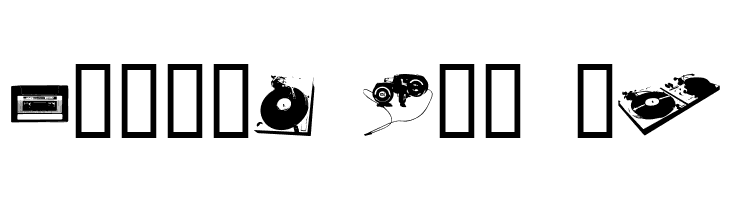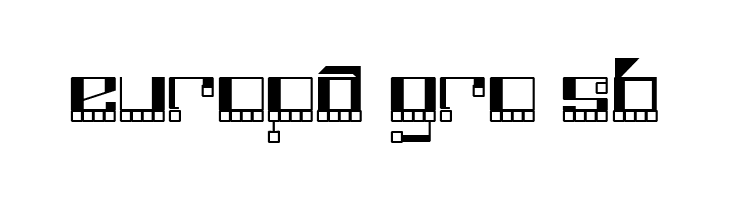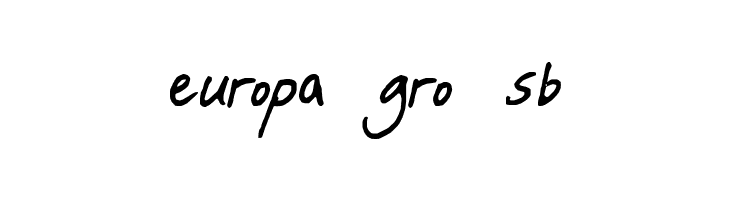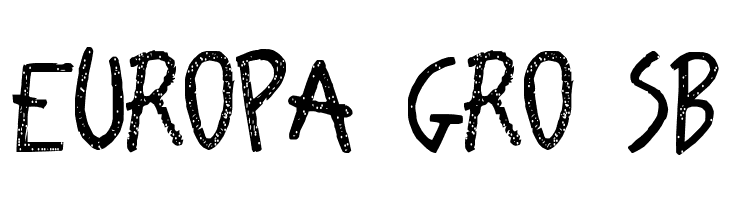
A modern, elegant font with art deco influences and slender letterforms.
A shadowed, art deco-inspired font with geometric shapes and elegant lines.
A playful, bubbly font with rounded edges and quirky cutouts.
A bold, rugged font with a hand-drawn, distressed appearance.
A bold, grid-patterned font with a futuristic and digital aesthetic.
A decorative font with whimsical bird illustrations replacing standard characters.
A playful font featuring unique hand-drawn bird illustrations.
A playful decorative font with unique bird illustrations for each character.
A playful, handwritten font with rounded, informal letterforms.
A decorative font with law enforcement and crime-themed illustrations.
A decorative font with characters inside heart shapes topped by cupids.
A decorative font featuring football helmet-themed characters, perfect for sports designs.
A bold, angular font with a Gothic-inspired design and high contrast strokes.
A playful dingbat font featuring a variety of whimsical objects.
A playful, handwritten font with a quirky and informal style.